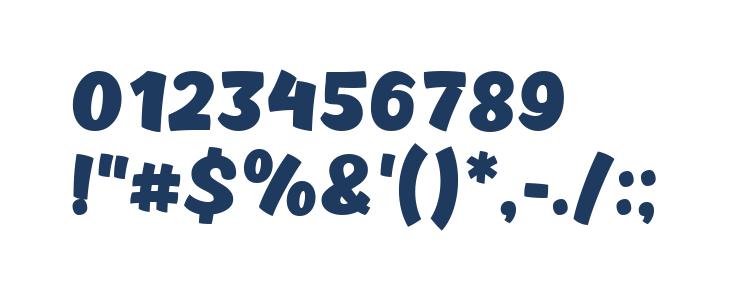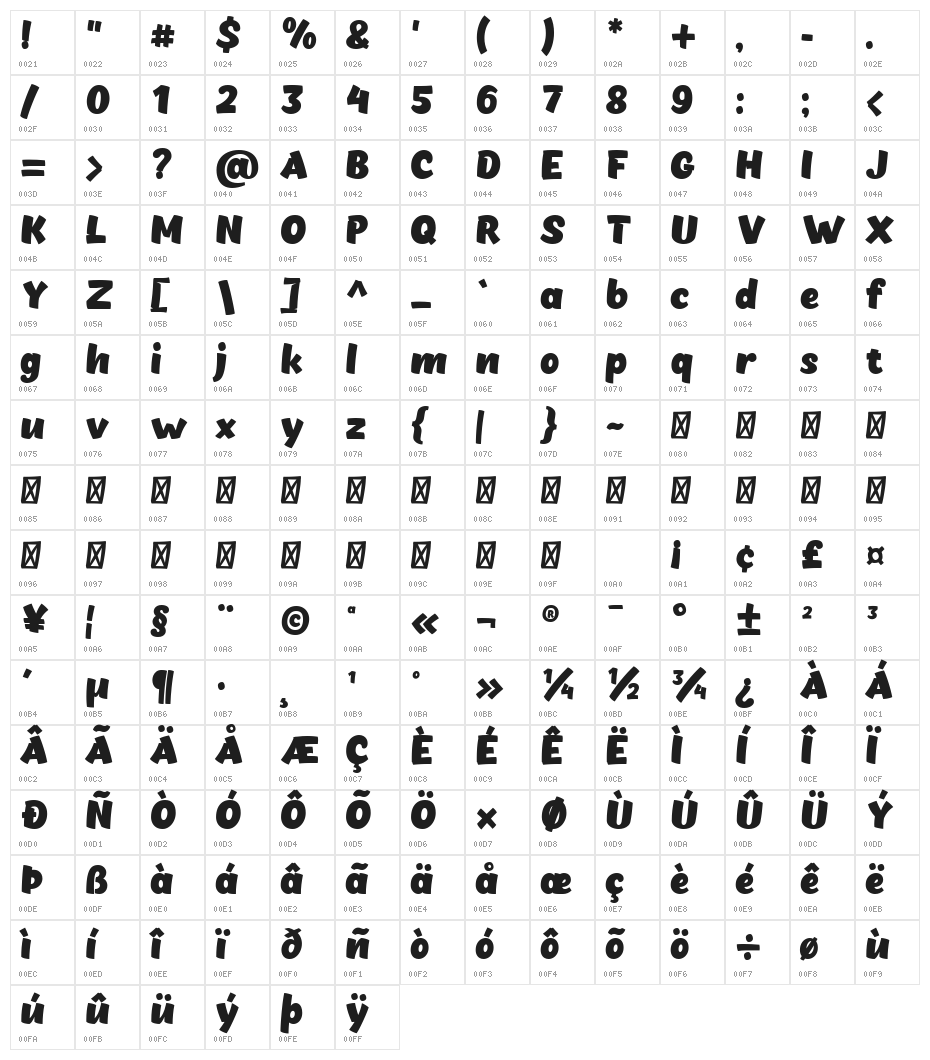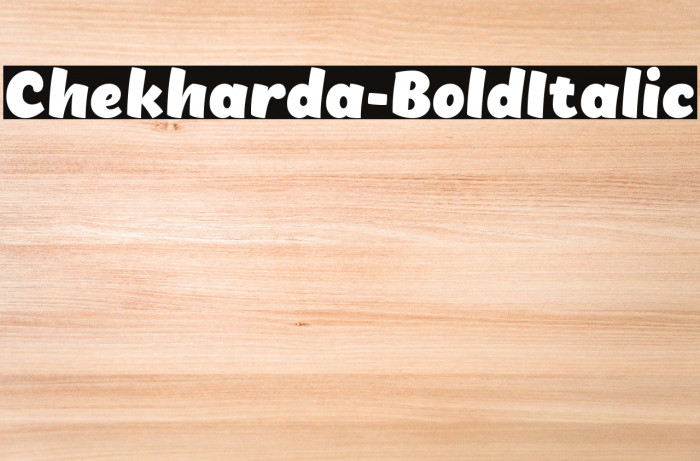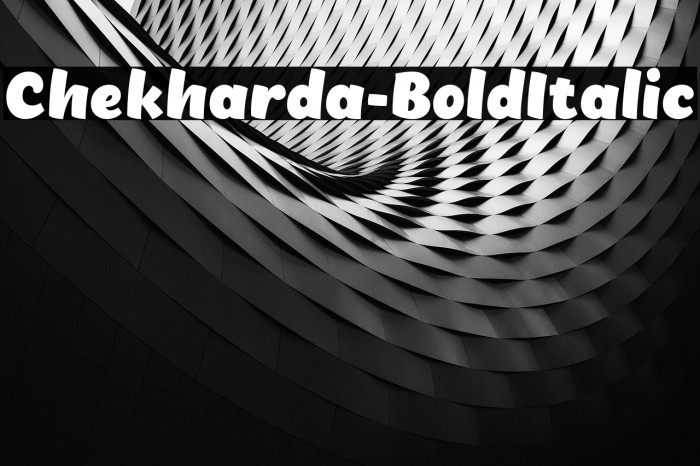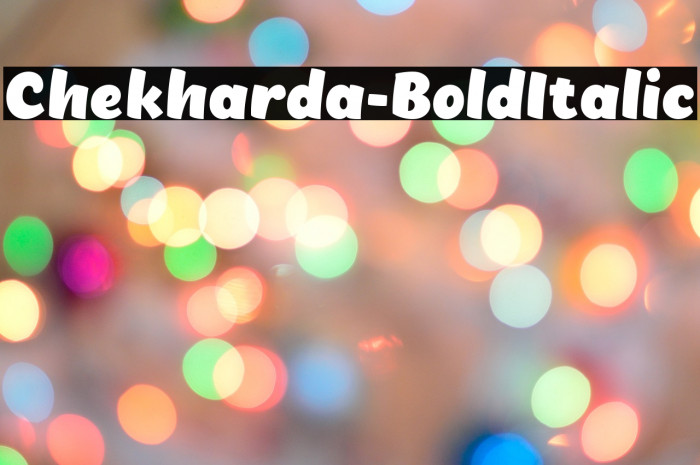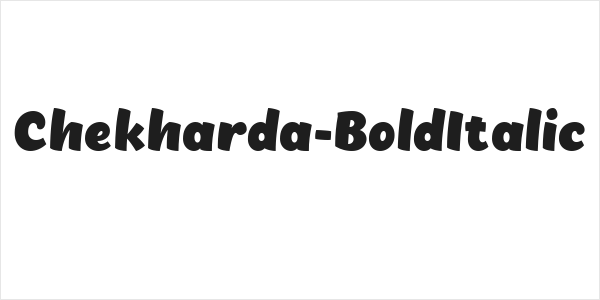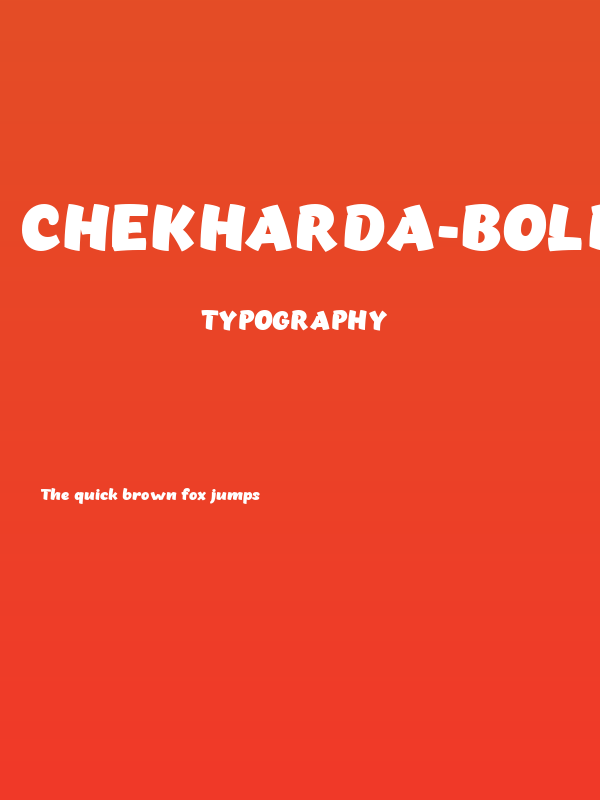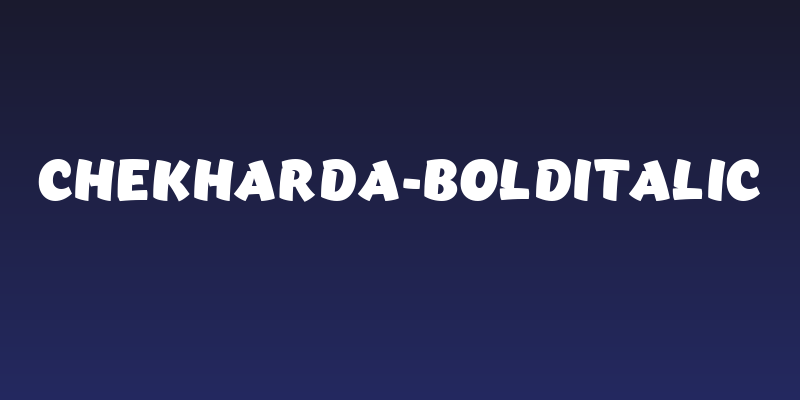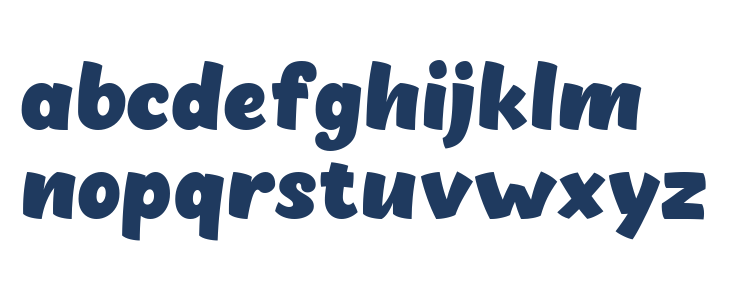
Chekharda-BoldItalic Font
Chekharda-BoldItalic Description
This bold and playful font features a distinctive, exaggerated style with thick strokes and a slightly italicized slant. The characters are rounded and full-bodied, giving them a lively and dynamic appearance. The uppercase and lowercase letters maintain a consistent weight, creating a harmonious look across different text sizes. The numerals and special characters are equally bold, ensuring readability and visual impact. This font's unique style makes it stand out, adding a touch of whimsy and creativity to any design.
| Overall Style | Playful, Creative, Dynamic |
| Proposed Projects | Ideal for children's books, playful branding, posters, and creative projects that require a fun and lively touch. |